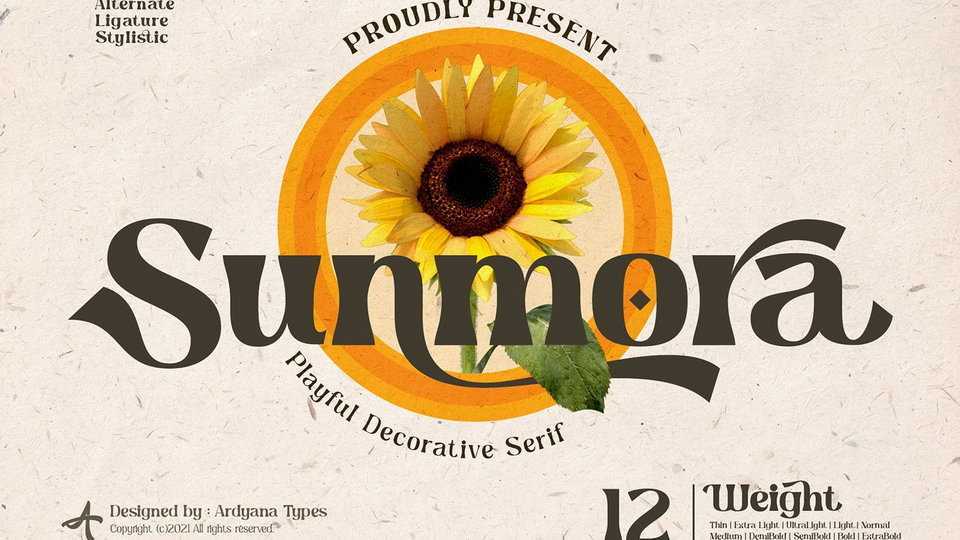
Download Sunmora font, a classic decorative serif font from the eighties to present. Sunmora is an elaborate curve and unique tail shape to make you freely set any design.
Designer: Ardyana Types